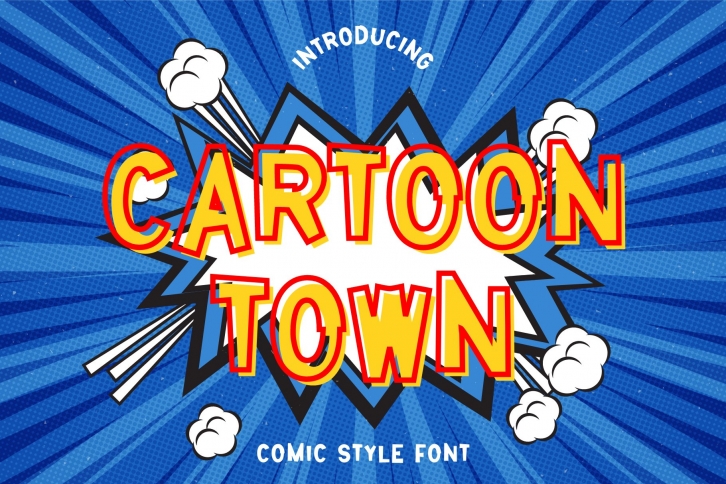
Cartoon Town is a great font that was designed by Creaditive Design. Imagine the amount of combinations you can create using this font! The archive is 5.81 MB and it was released on October 5, 2021. Cartoon Town looks beautiful on wedding invitations, greeting cards, logos, posters, labels, t-shirt designs, logos, business cards and is perfect for use in ink or watercolor works, fashion, magazines, packaging and food menus, children's books and more!